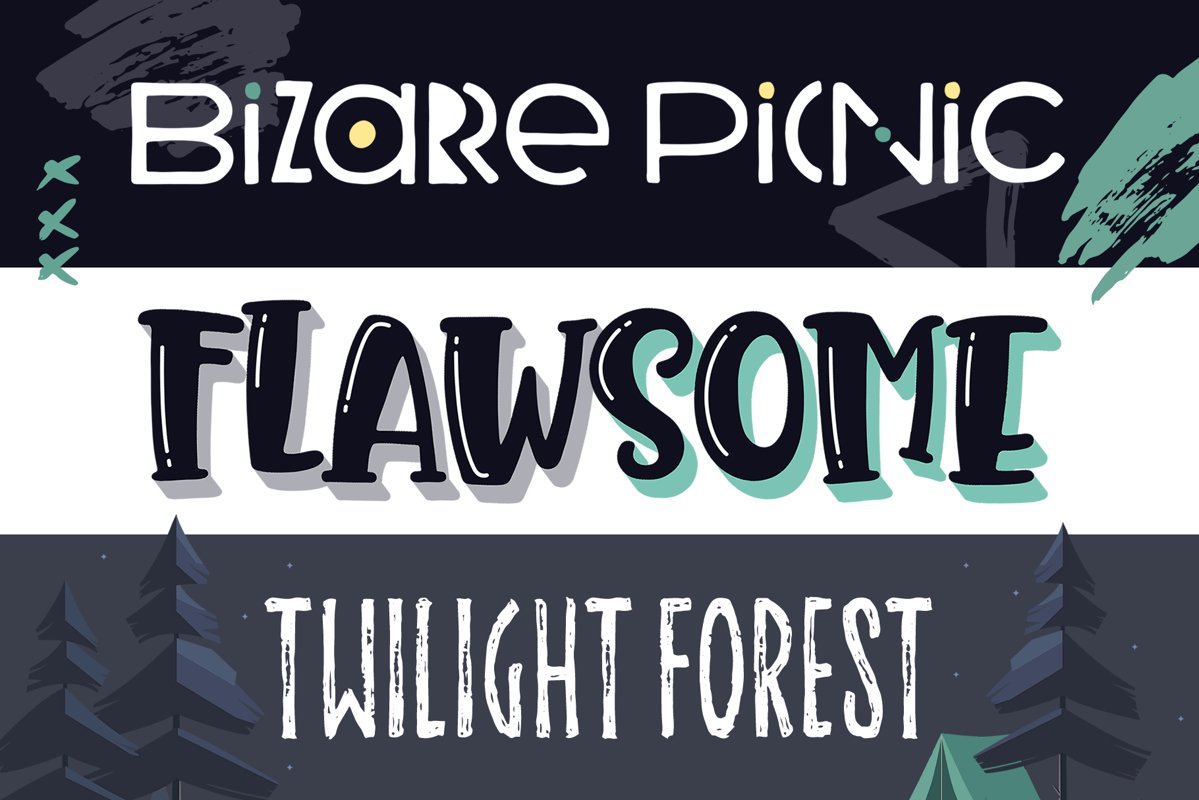
Summer Nights Font Trio
Flawsome
BizarrePicnic
TwilightForest
Included in the Summer Nights Font Trio is Flawsome: a bold and playful caps font that includes two versions of each letter which can be used separately or on top of each other to achieve a different look - Twilight Forest: a sketchy and slim all caps font - and Bizarre Picnic (a funky variation of Breezy Picnic Font from the Summertime Trio) which comes in a regular and color version. Color SVG fonts can be used in Photoshop CC 18.0+, Illustrator CC 22.0.0+, or InDesign CC 13.0.1+.